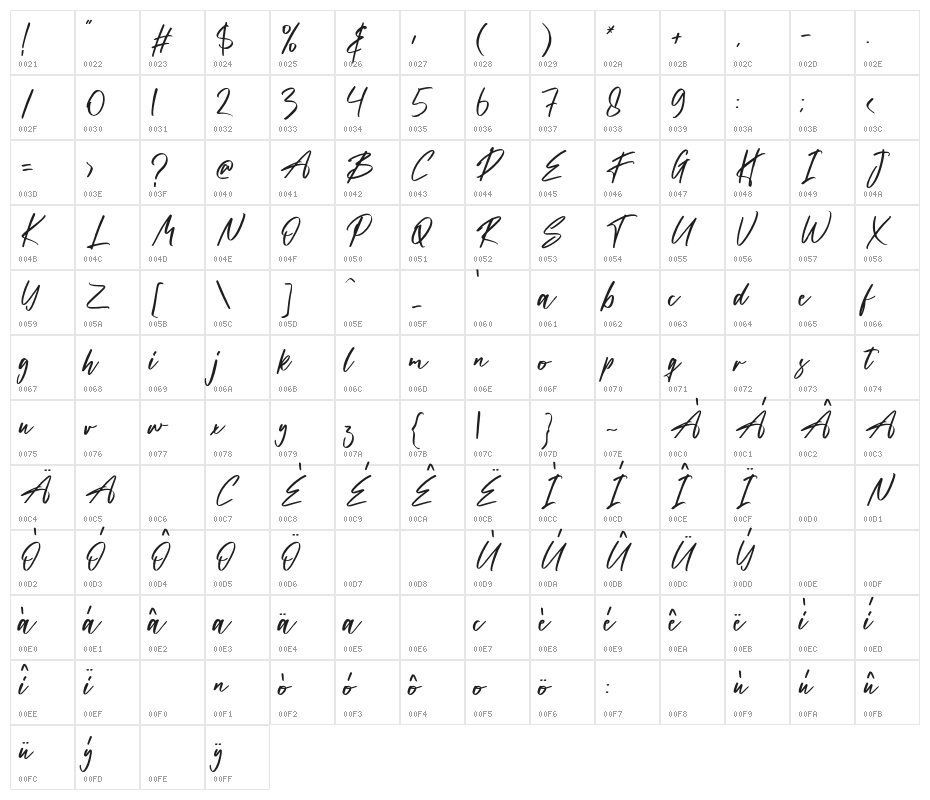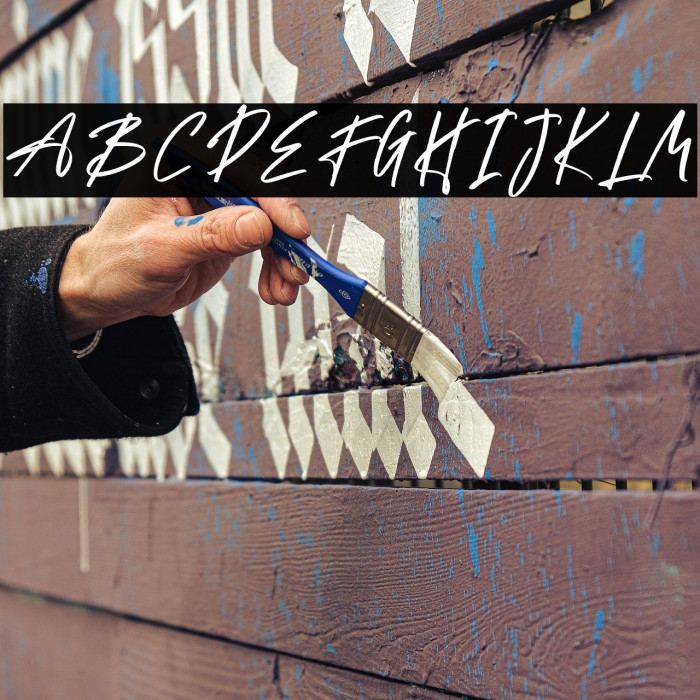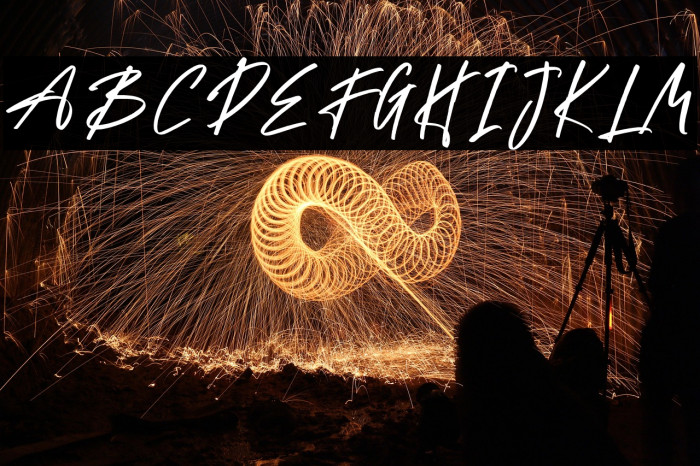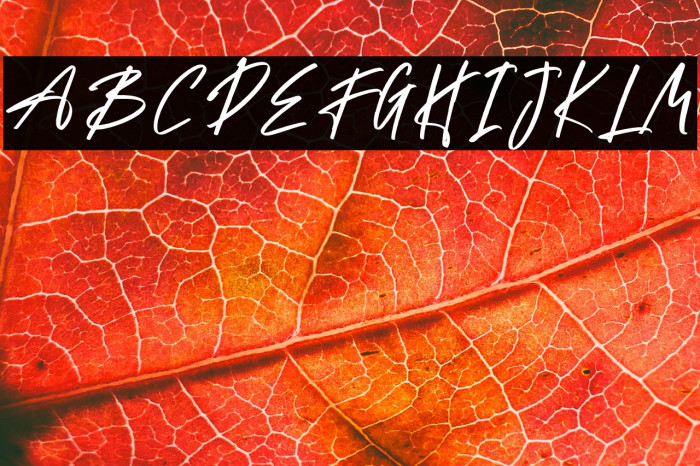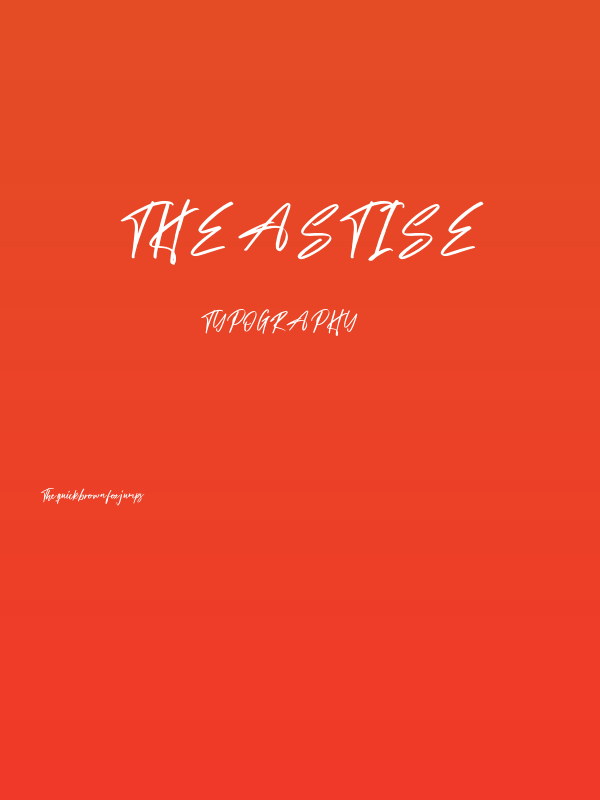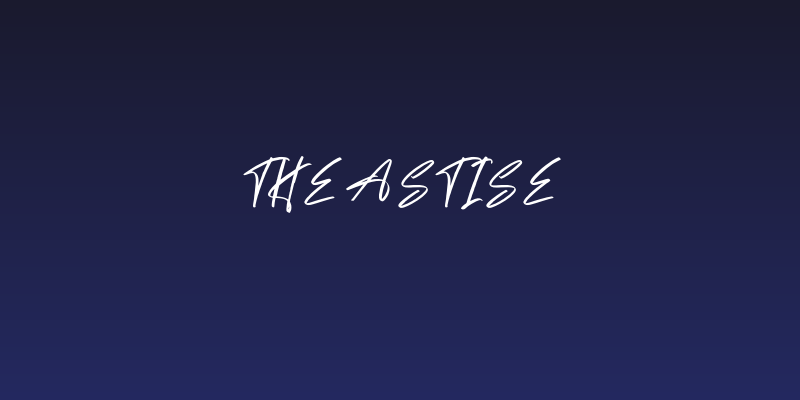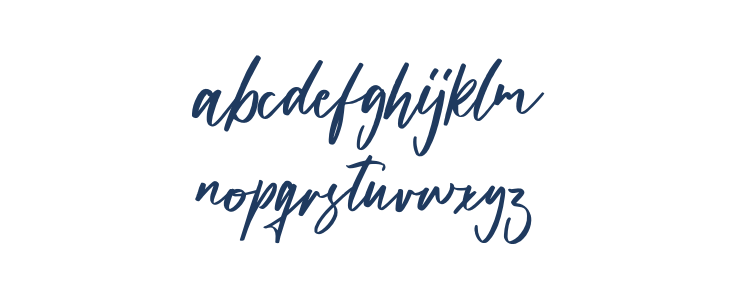
The Astise Font
The Astise Description
This font exudes a dynamic and expressive handwritten style, characterized by its fluid and cursive strokes. The uppercase letters are bold and slightly slanted, giving a sense of movement and energy. The lowercase letters maintain a consistent flow, with some letters featuring loops and swashes that enhance its handwritten appeal. The numerals are clear and legible, maintaining the same energetic style as the letters. Special characters are creatively integrated, matching the overall aesthetic. This font is perfect for projects that require a personal touch or a creative flair.